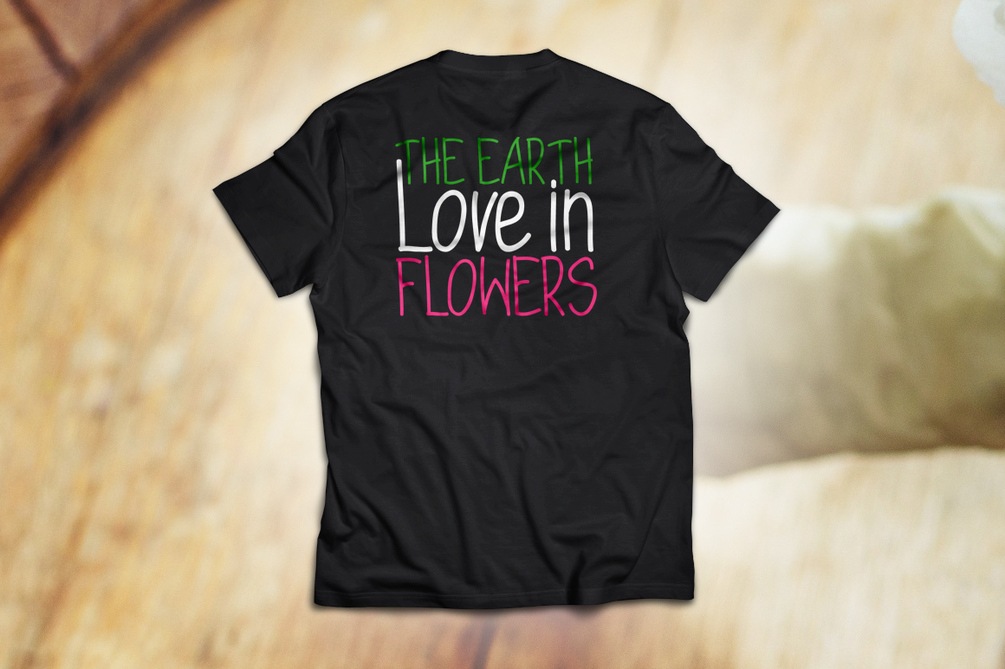
Dorathy Handwritten Font
Dorathy is a brand new modern font. Dorathyis perfectly suited to stationery, logos, t-shirt, paper, print design, website header, photo frame, flyer, music cover, poster, image slider and much more.